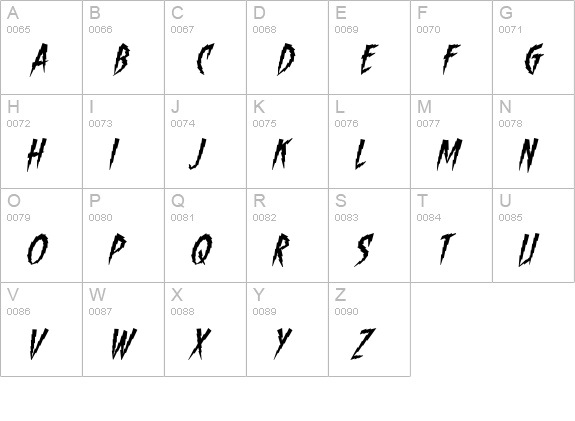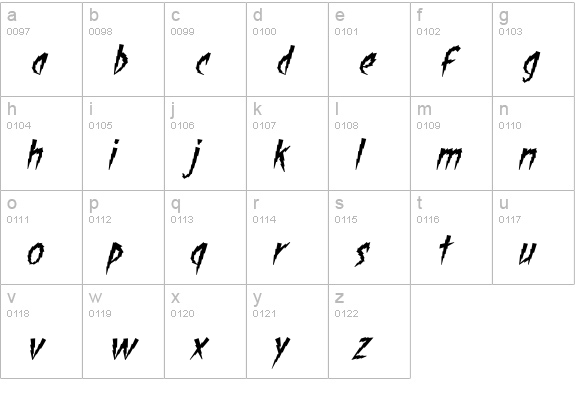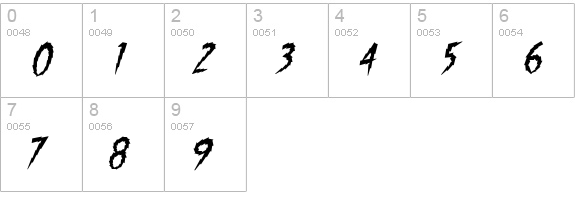
ShockTherapy BB Italic Font Details
ShockTherapy BB Italic is a distinctive, italic variant in the ShockTherapy typeface family \xE2\x80\x94 well suited to design and typography projects.
Introducing ShockTherapy BB Italic font - a bold and dynamic typeface that is sure to make an impact on your design projects. With its edgy and electrifying aesthetic, this font is perfect for creating eye-catching headlines, posters, and branding materials. The italic style of ShockTherapy BB adds a touch of modernity and sophistication to any design. Its unique letterforms and sharp angles exude confidence and creativity, making it the perfect choice for projects that demand attention. And the best part? ShockTherapy BB Italic font is completely free to download at FontsMarket.com! So go ahead and give your designs a jolt of energy with this electrifying typeface today.